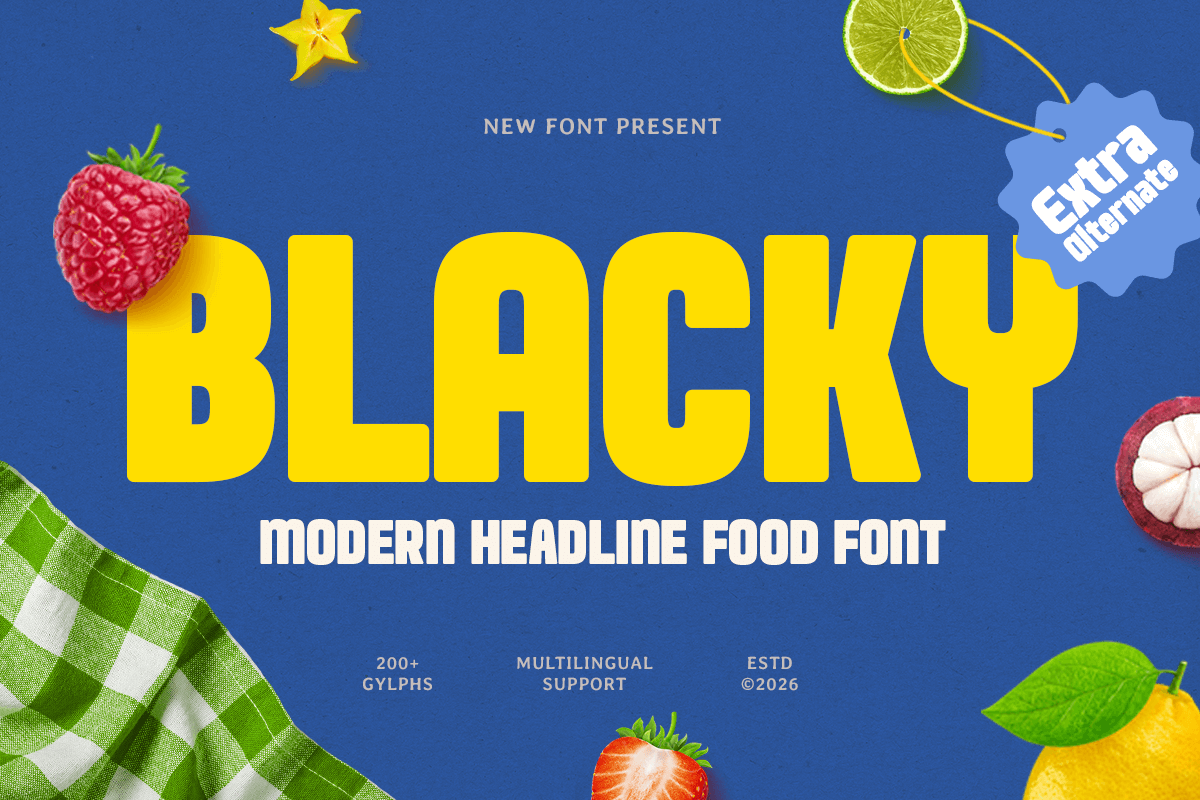
Blacky
-Modern Headline Food FontBlacky - Modern Headline Food Font
BLACKY is a modern headline food font crafted to bring bold flavor and strong visual appeal to your typography. With thick, confident letterforms and a fresh modern attitude, this typeface creates an appetizing tone that feels energetic, friendly, and instantly attention-grabbing.
Designed for food-focused display use, BLACKY works beautifully across restaurant branding, café menus, food packaging, product labels, posters, signage, social media promos, and digital campaign graphics. Its headline-driven structure keeps every word clear and impactful, helping your food brand look memorable across both print and digital layouts.
Whether you’re launching a snack brand, designing menu titles, creating takeaway packaging, or building cheerful food marketing visuals, BLACKY provides a bold typographic foundation that makes every headline feel delicious, modern, and hard to ignore.
Inspiration Behind BLACKY
BLACKY is inspired by modern food branding and bold packaging typography—where strong shapes and playful rhythm make products feel more inviting and crave-worthy. The design focuses on thick forms and lively visual balance to support food campaigns, menus, and packaging with a fresh, brand-ready personality.
BLACKY Font Features:
Bold modern headline letterforms with food-brand personality
Strong readability for product names and promotional headlines
Friendly display structure for appetizing visual impact